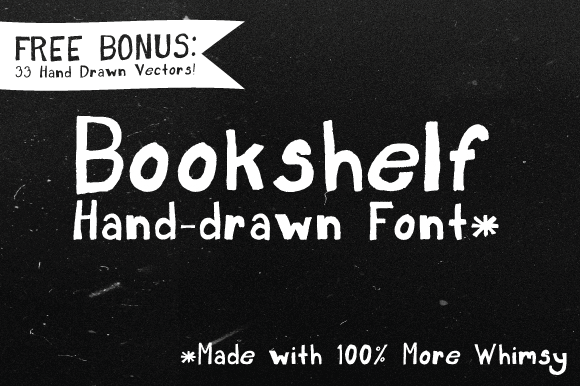
Bookshelf Font + Bonus
I created "Bookshelf" from scratch, starting with some sketches in my notebook. Hand drawn and hand made with full alpha and numeric glyphs, with a little bit of whimsy on top.